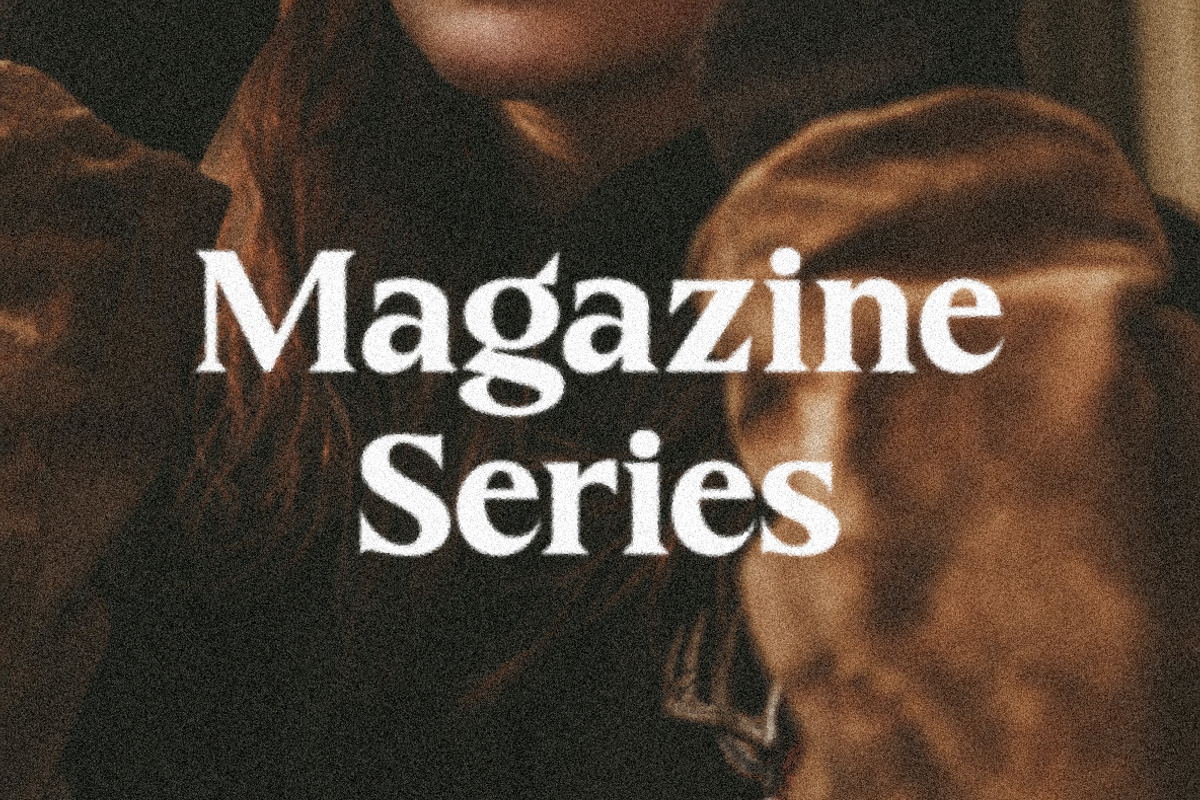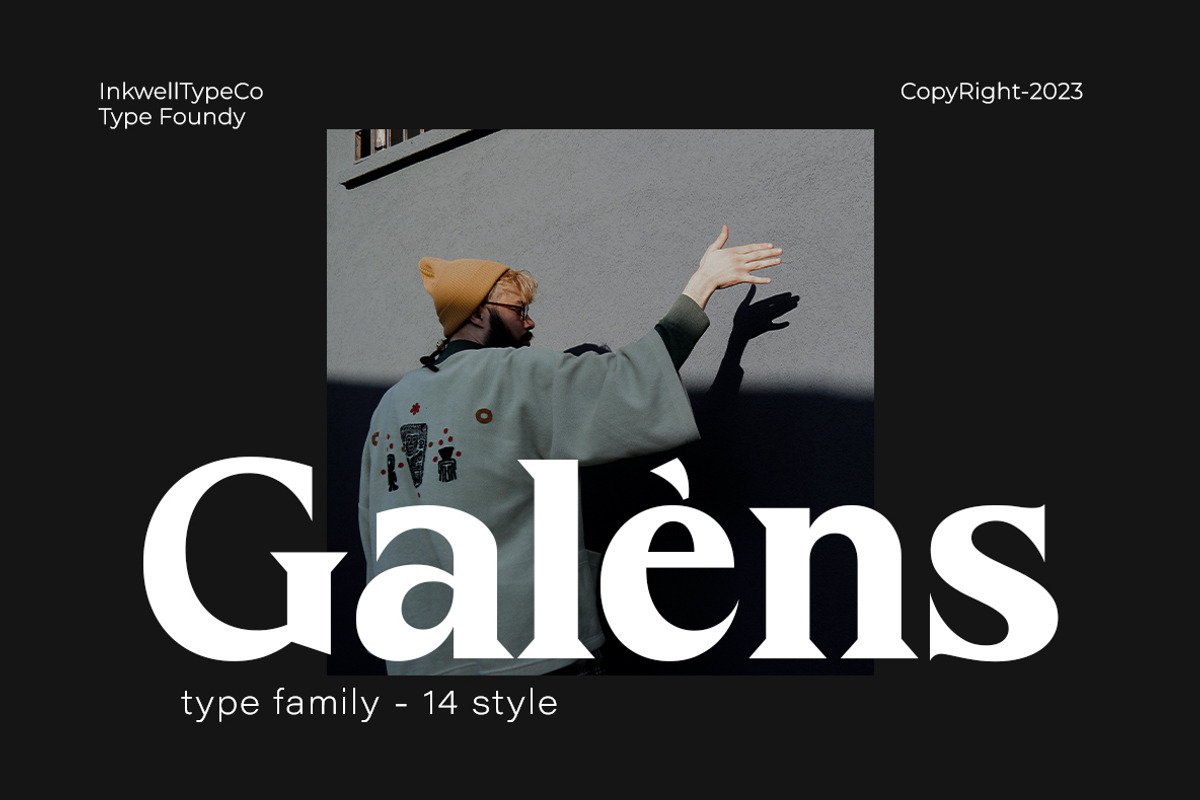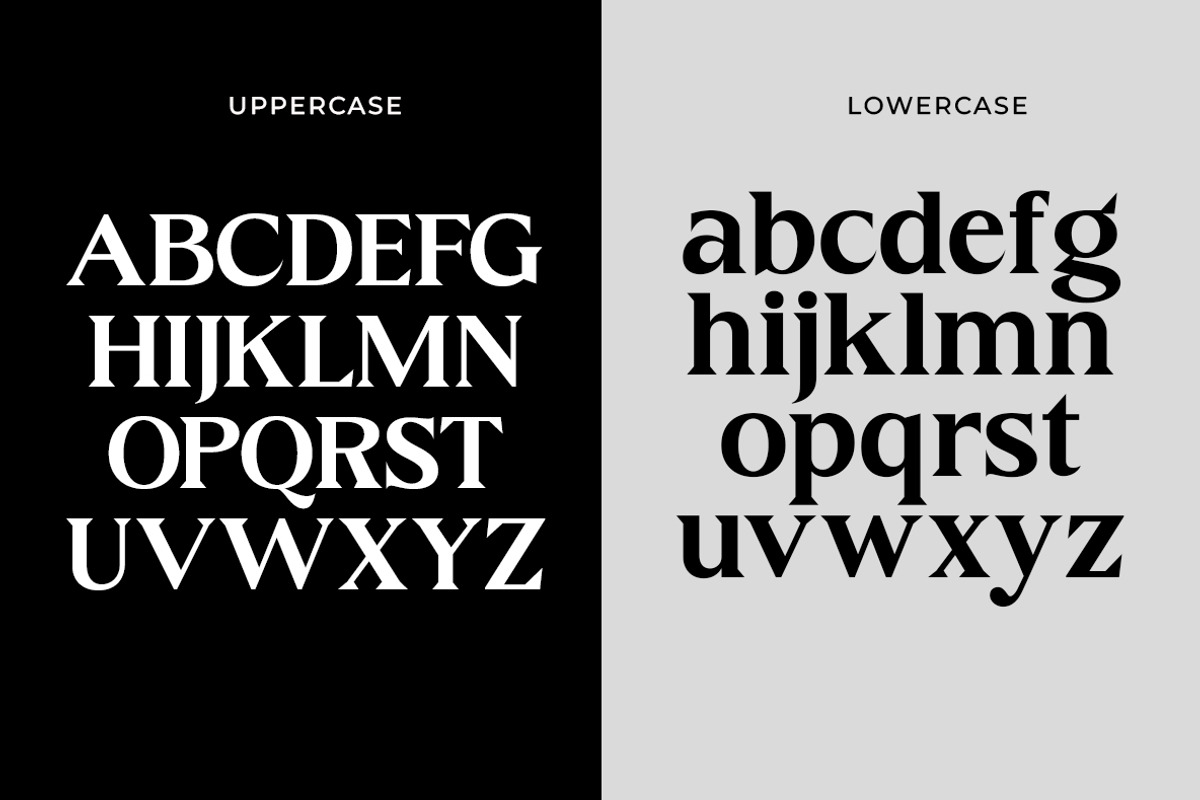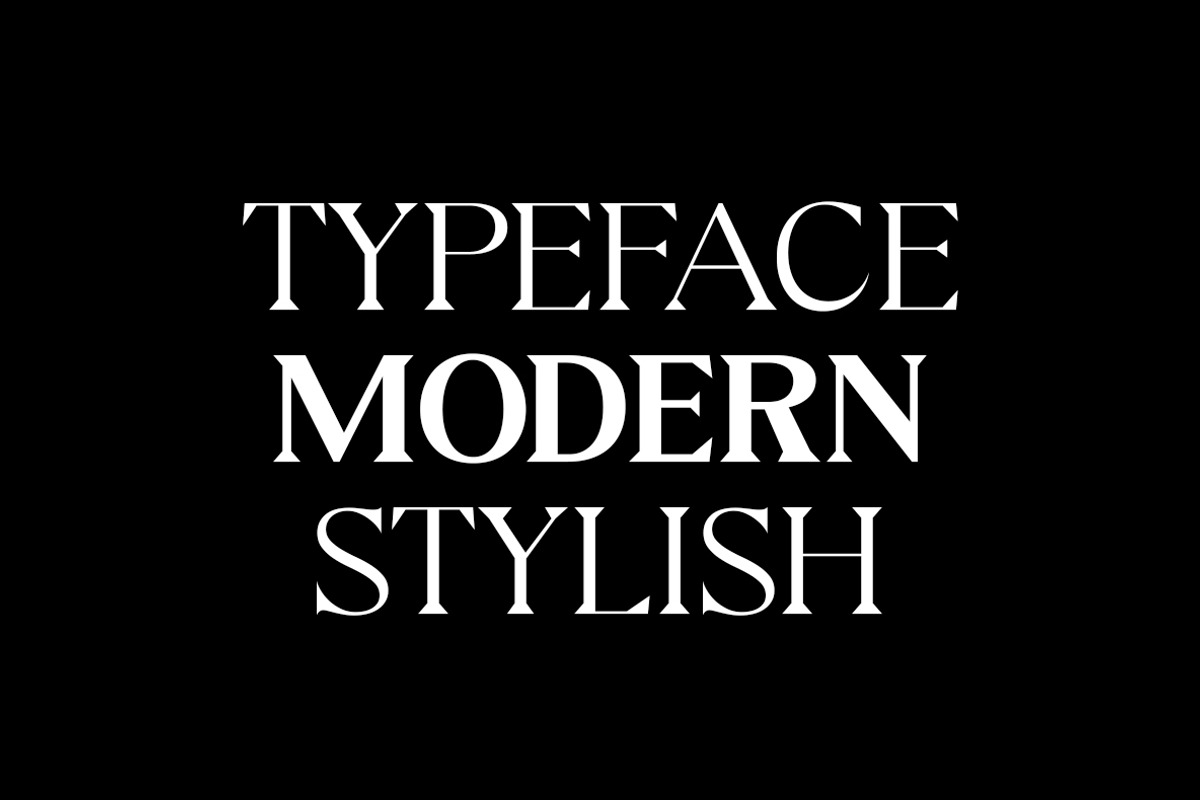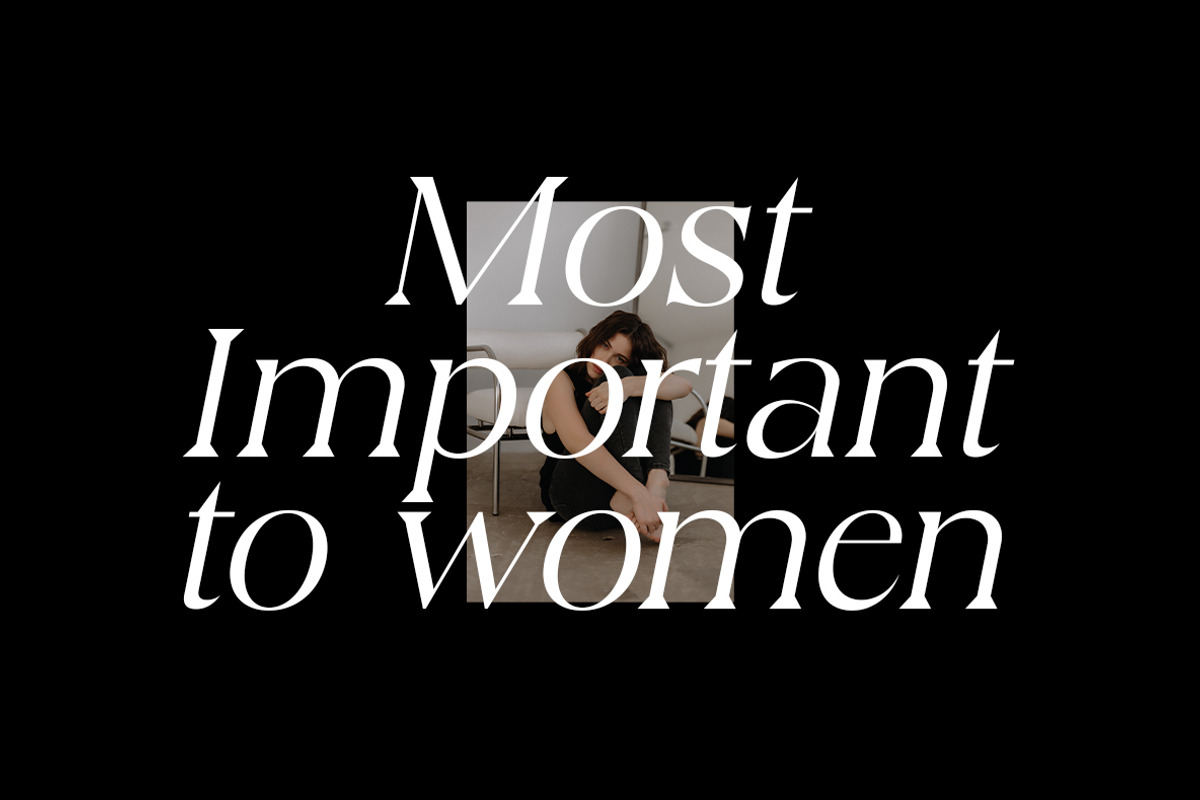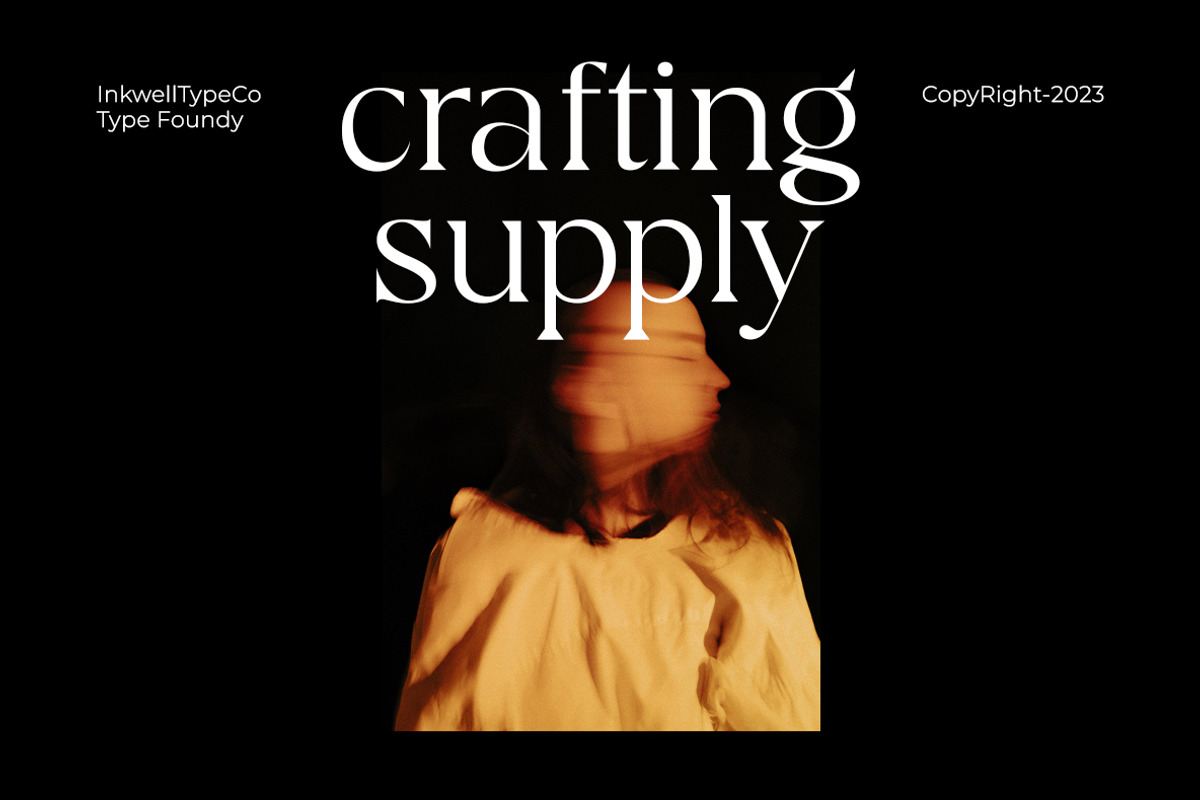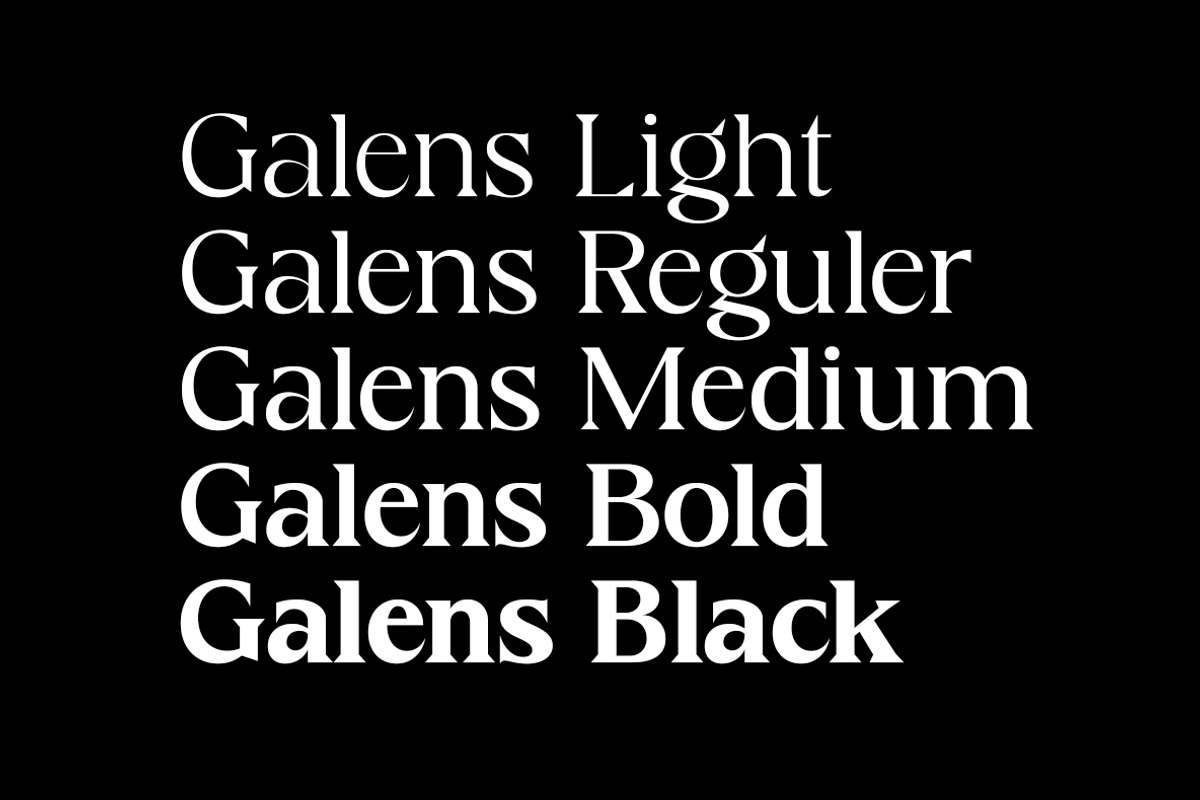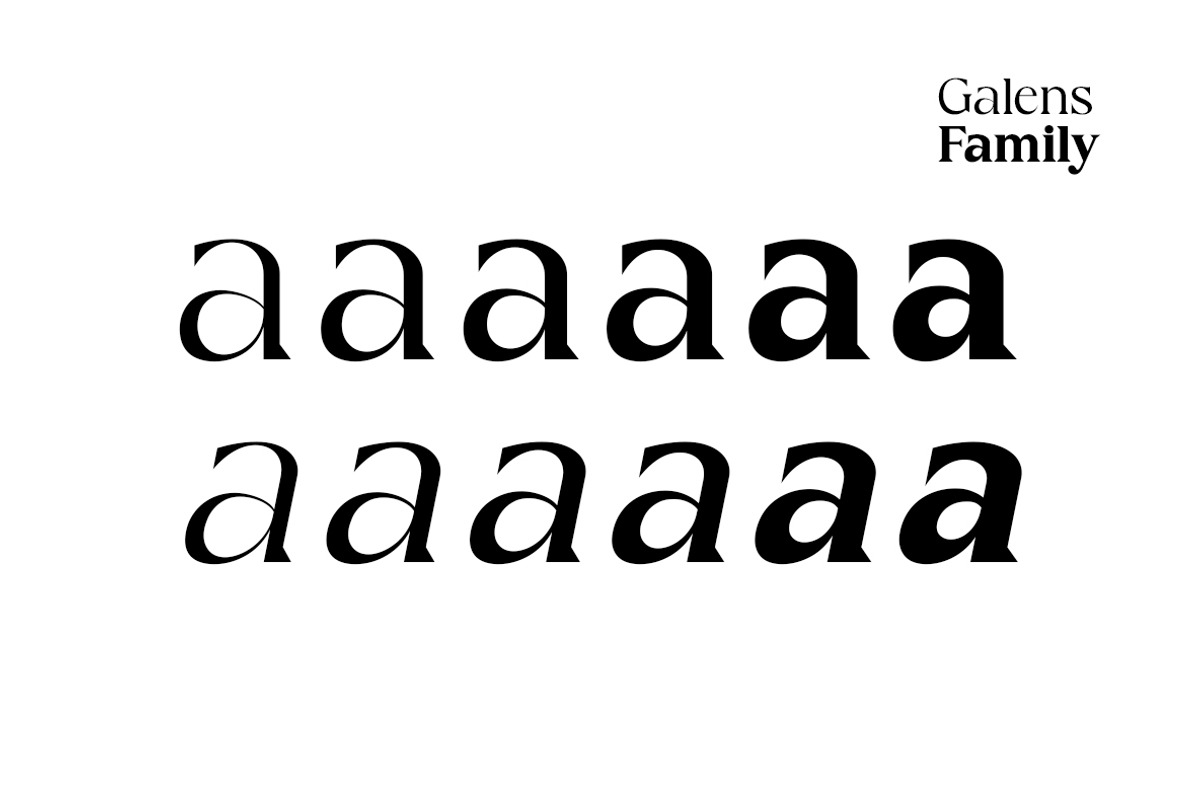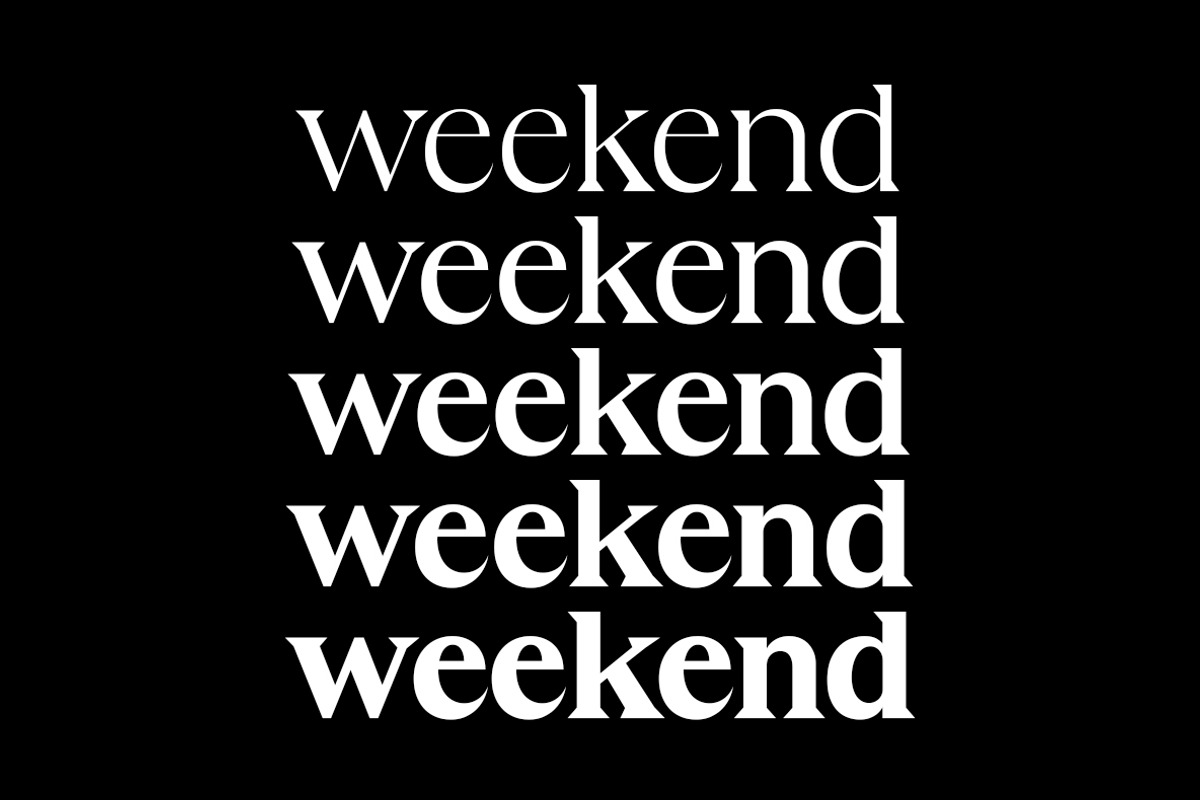
Galens | Serif font family
Galens." Designed for versatility and visual coherence, Galens is a comprehensive collection that seamlessly integrates various weights and styles. From sleek and modern to bold and expressive, each member of the Galens family complements the others, ensuring a harmonious typographic palette for your design projects. With its clean lines, contemporary aesthetics, and a range of options, Galens offers the flexibility to convey your message with clarity and style across diverse applications. Embrace the synergy of typography with Galens, where unity meets diversity in every character.